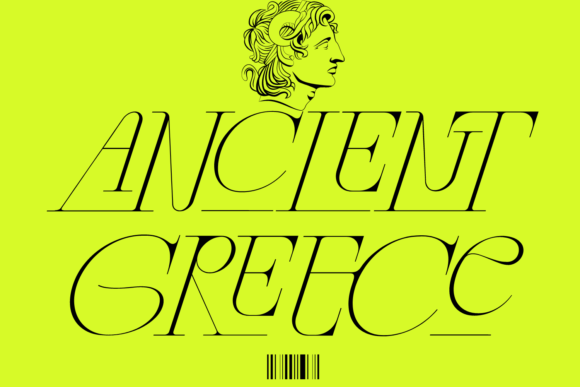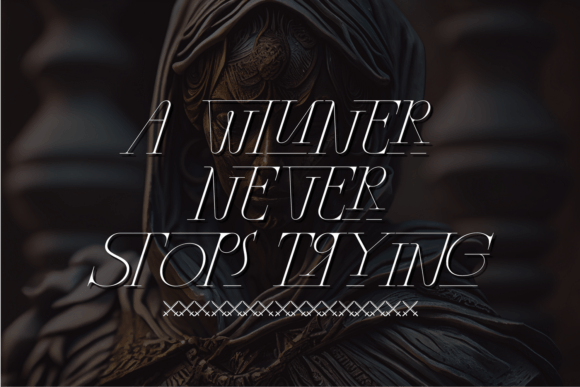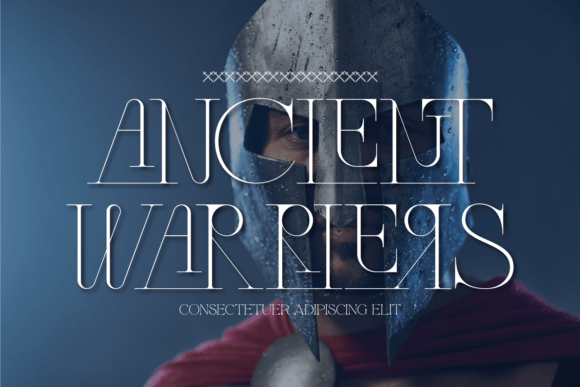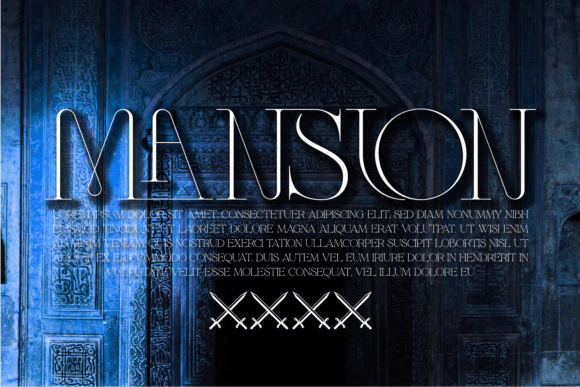
Ancient Greece Font
About the Ancient Greece Font
From logos to headlines, the Ancient Greece Font is the perfect choice for making a lasting impression. Ancient Greece is a stylish serif font that exudes elegance and luxury. Inspired by the timeless beauty of ancient Greek architecture, this font features clean, precise lines and a classic, sophisticated look. The tall, slender letterforms add an air of refinement, making it perfect for high-end branding and editorial projects. Its versatility makes it a great choice for everything from logos to invitations.
Ancient Greece Font Usage Examples
Ancient Greece Font Example